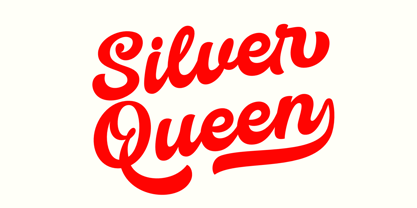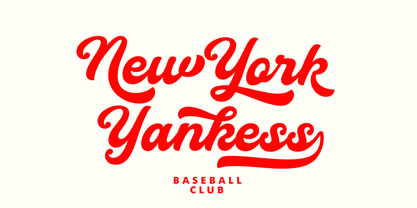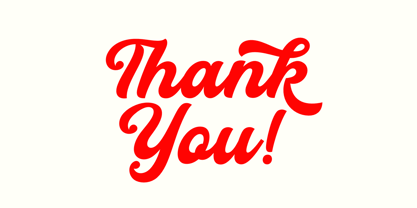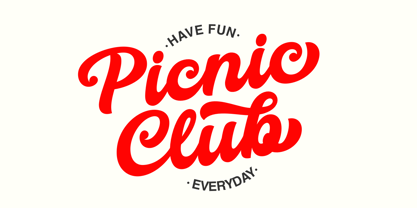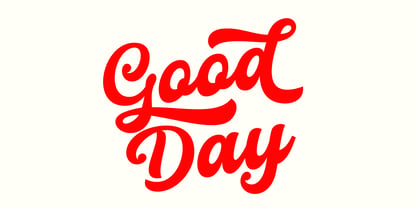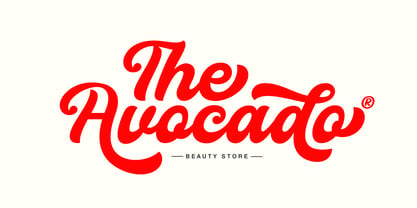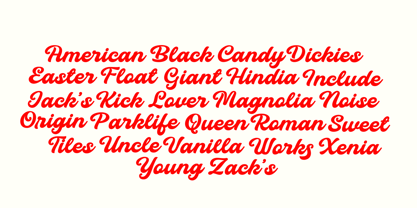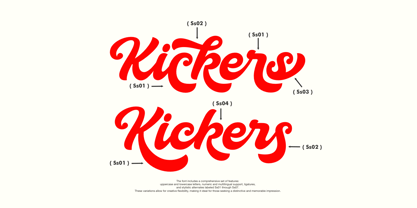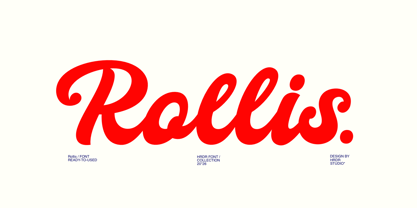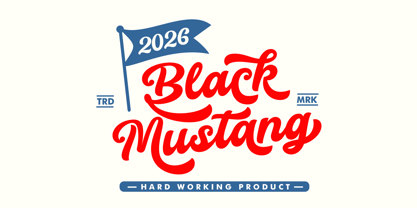
Rollis
by HRDR
The Rollis Font Family was designed by Dede Mulyadi and published by HRDR. Rollis contains 1 styles.
Rollis is a casual script font imbued with an elegant style, making it ideal for a wide range of creative projects. Whether you're crafting a memorable logo, designing an invitation, or enhancing product packaging, Rollis sophisticated and fluid letterforms will add a touch of refinement. This font is impeccably suited for branding, stationery, and wedding designs, ensuring your work exudes both professionalism and artistic flair. Its versatile aesthetic also makes it perfect for social media posts, advertisements, posters, and photography elements. The graceful script enhances special events and product labels, providing a cohesive and polished look. Embrace the elegance of Rollis to bring a unique and captivating charm to your designs.
Designers: Dede Mulyadi
Publisher: HRDR
Foundry: HRDR
Design Owner: HRDR